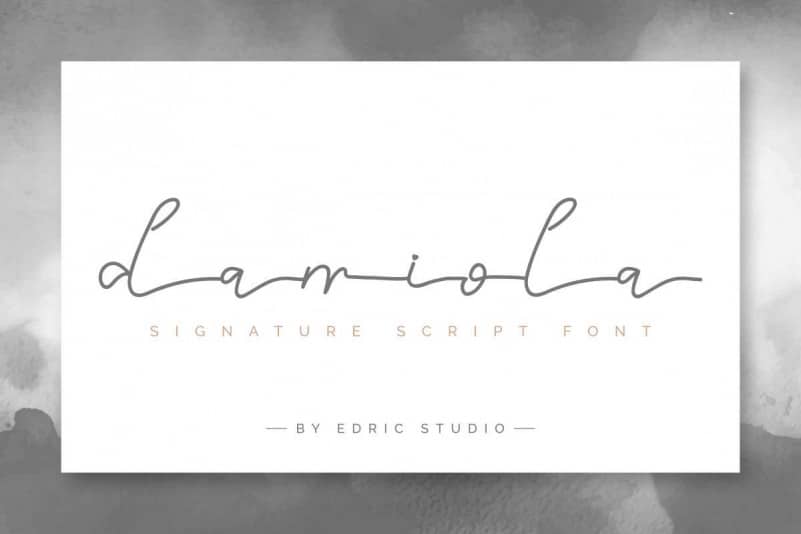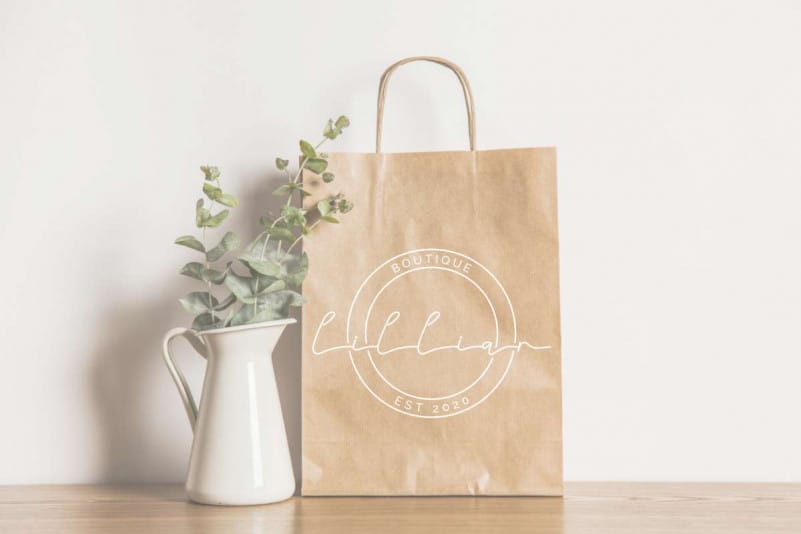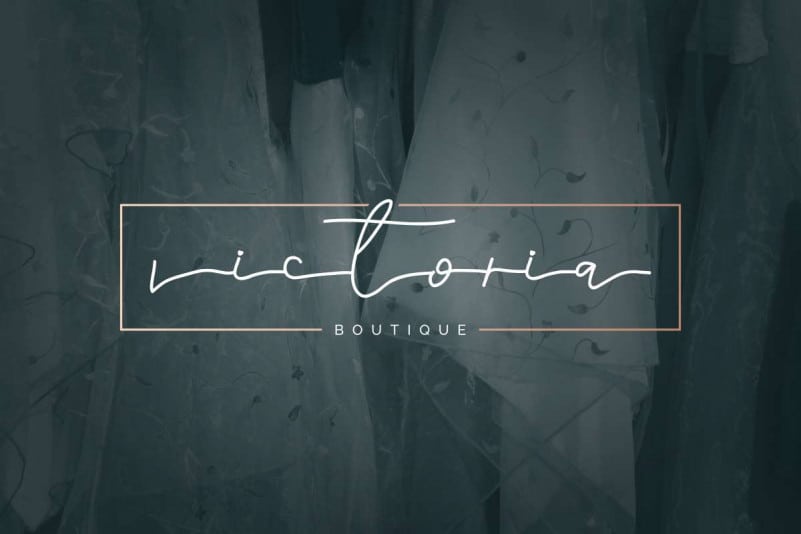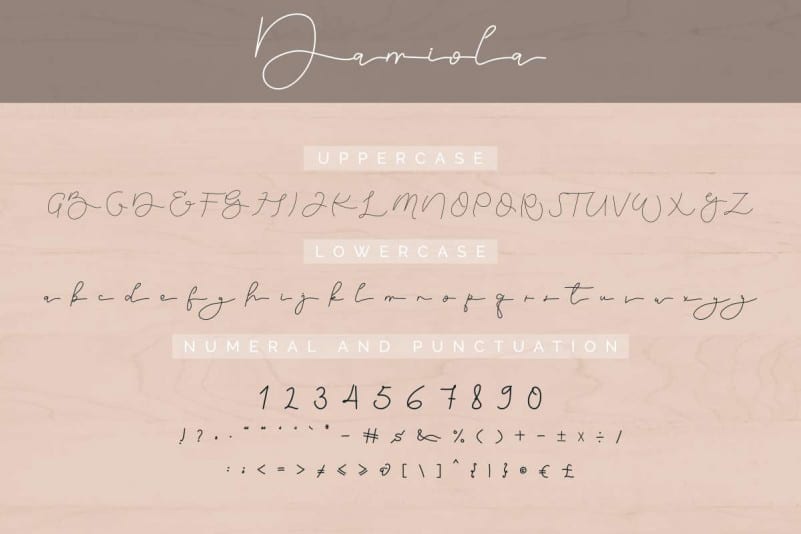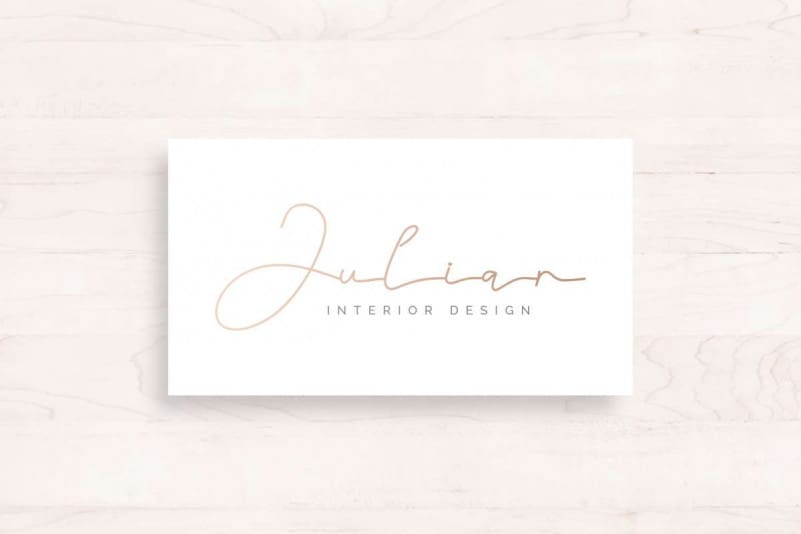
Damiola Handwriting Font
Damiola Handwriting Font is a clean natural and beautiful handwriting script font. It has a unique typeface designs with special casual style. Well space managed and hand selected kerning arrangement. The theme style of this font are elegant, simple, stylish, modern, signature, pen, calligraphic, feminine and exclusive style. Stand out from the crowd using this font.